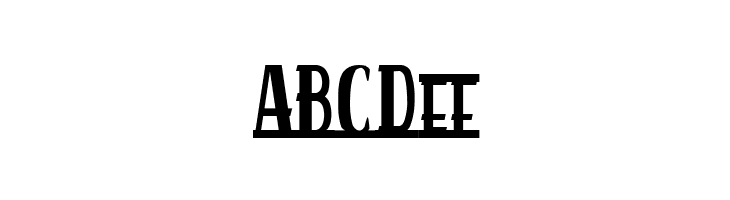
Mechanist Mounted Font
- Font: Mechanist Mounted
A bold, decorative font with geometric elements and high contrast strokes.
( Fonts by Emerald City Fontwerks )